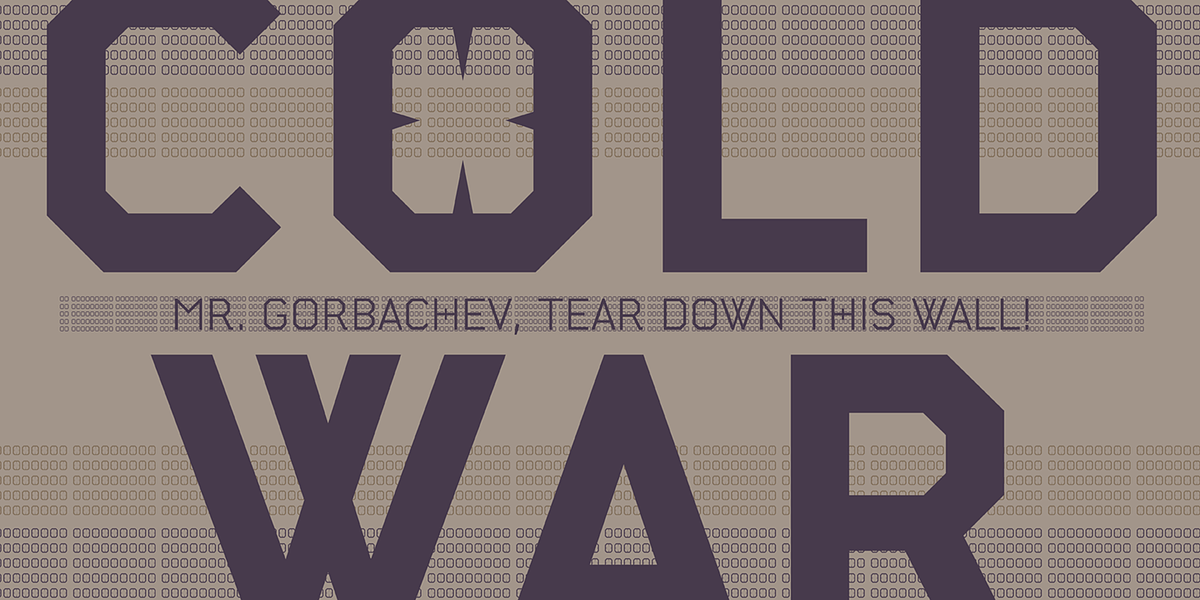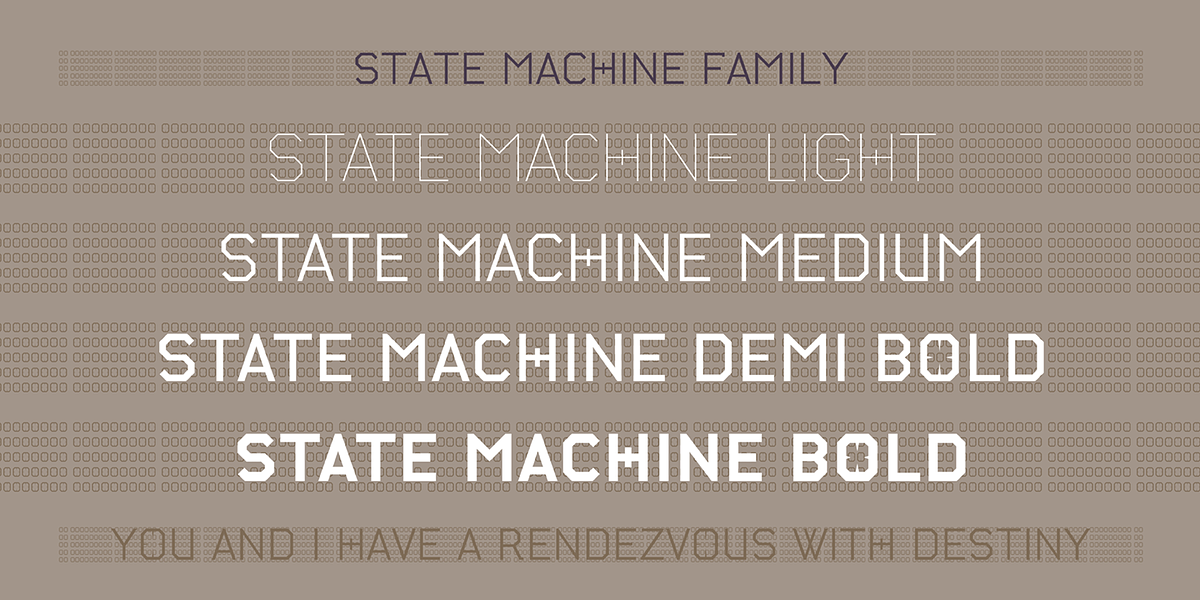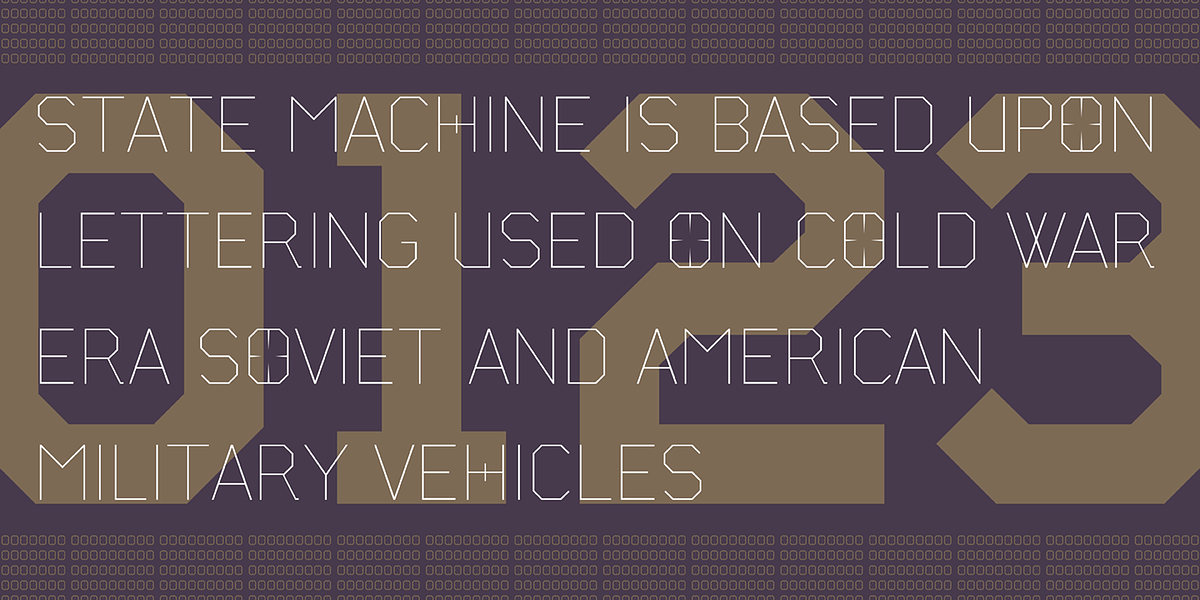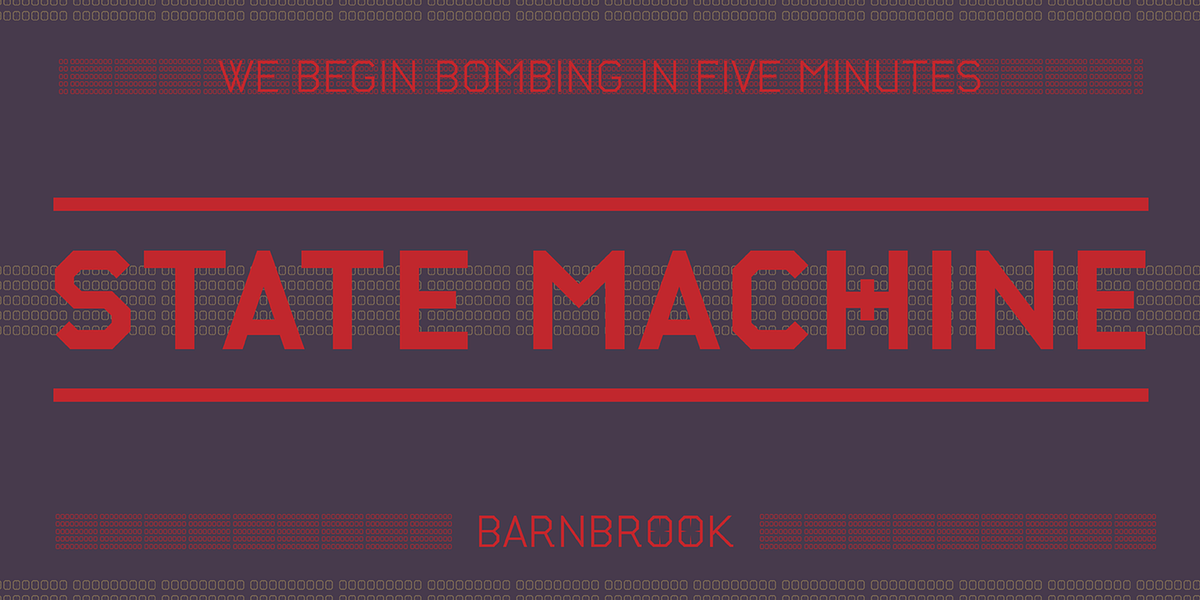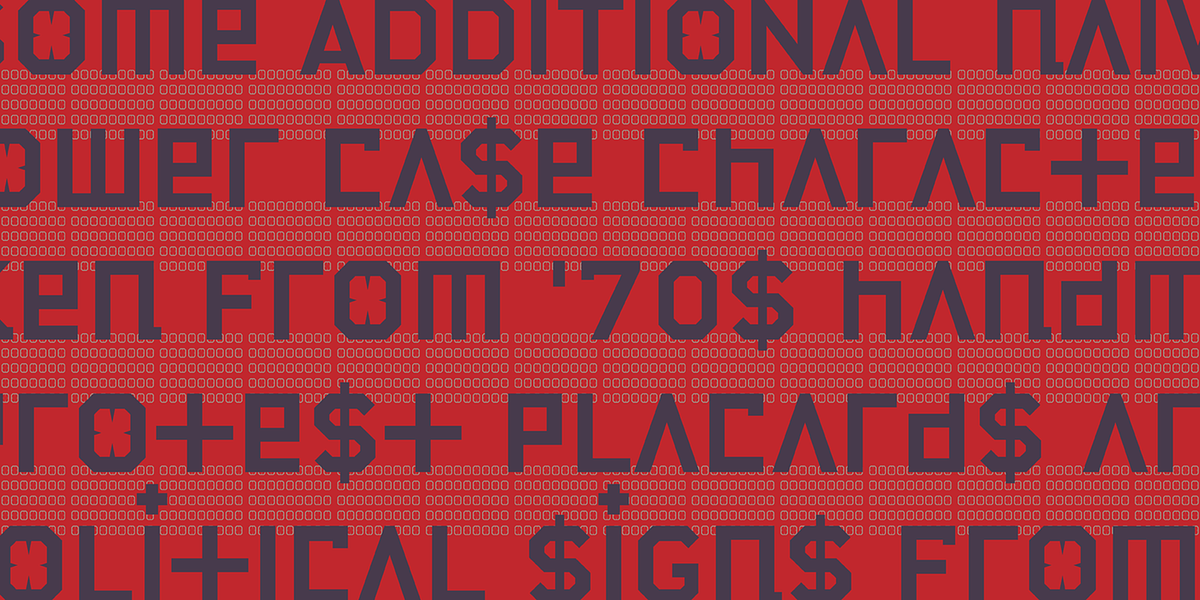
State Machine
State Machine is a display typeface inspired by the lettering found on American and Russian military vehicles during the Cold War. It features a bold, geometric design with high contrast between thick and thin strokes. The font also includes an alternate character set reminiscent of hand-painted political banners from the 1970s.